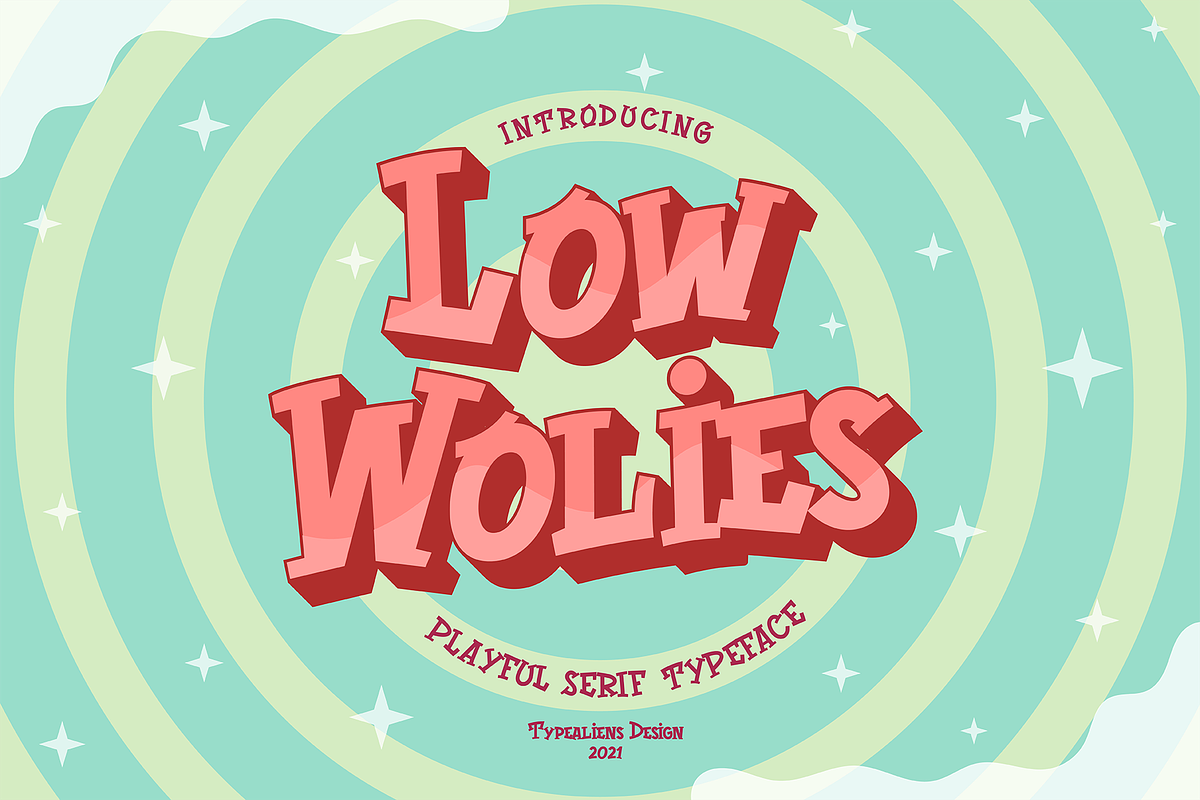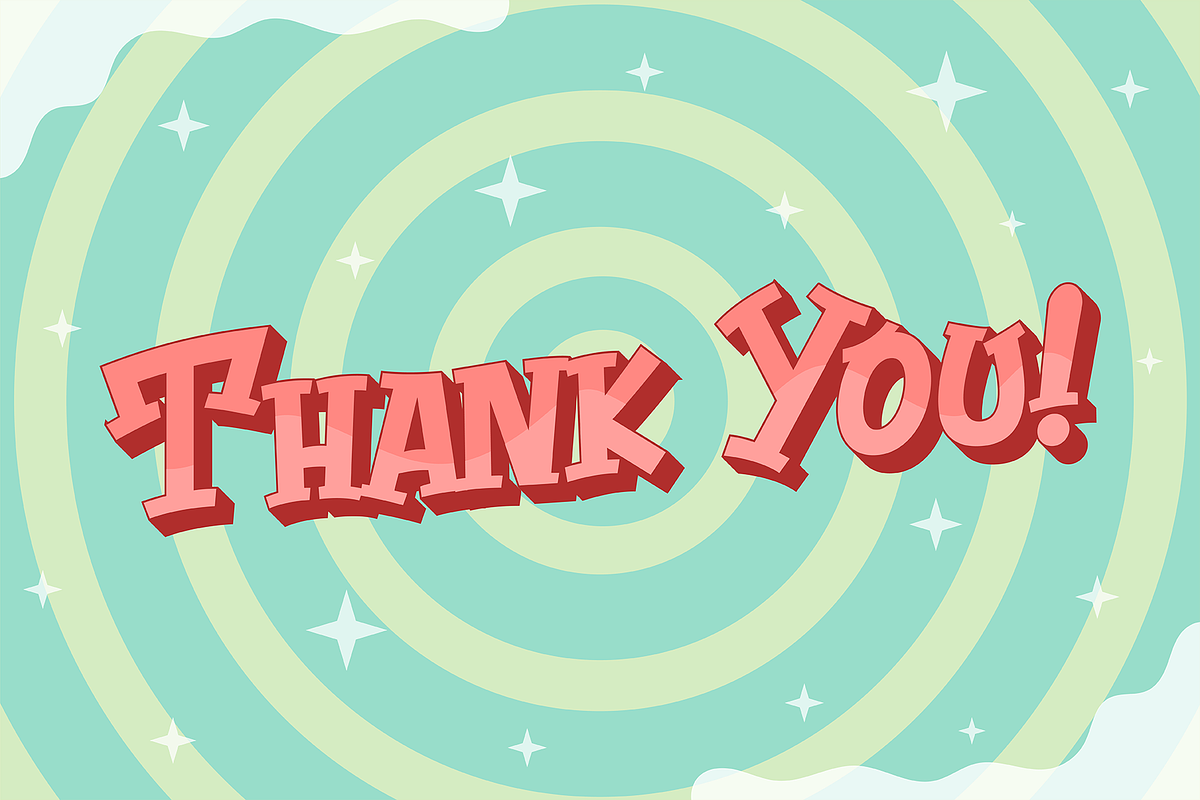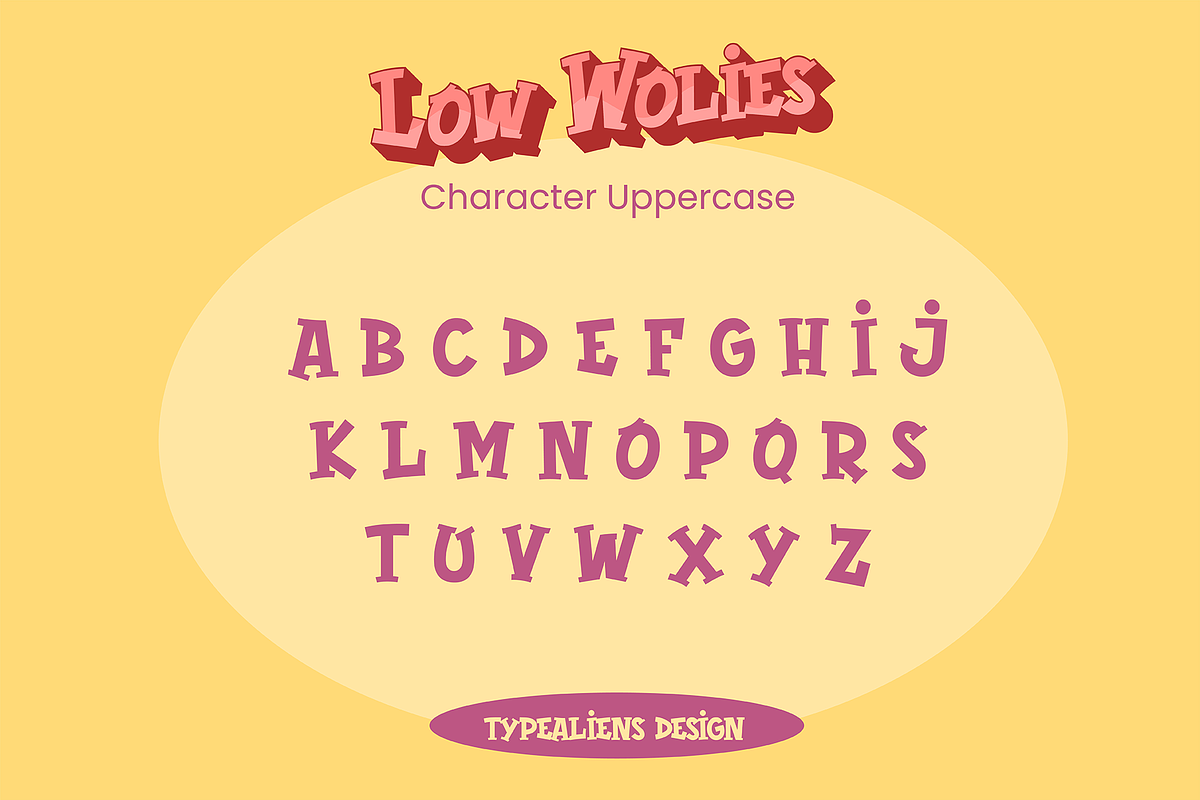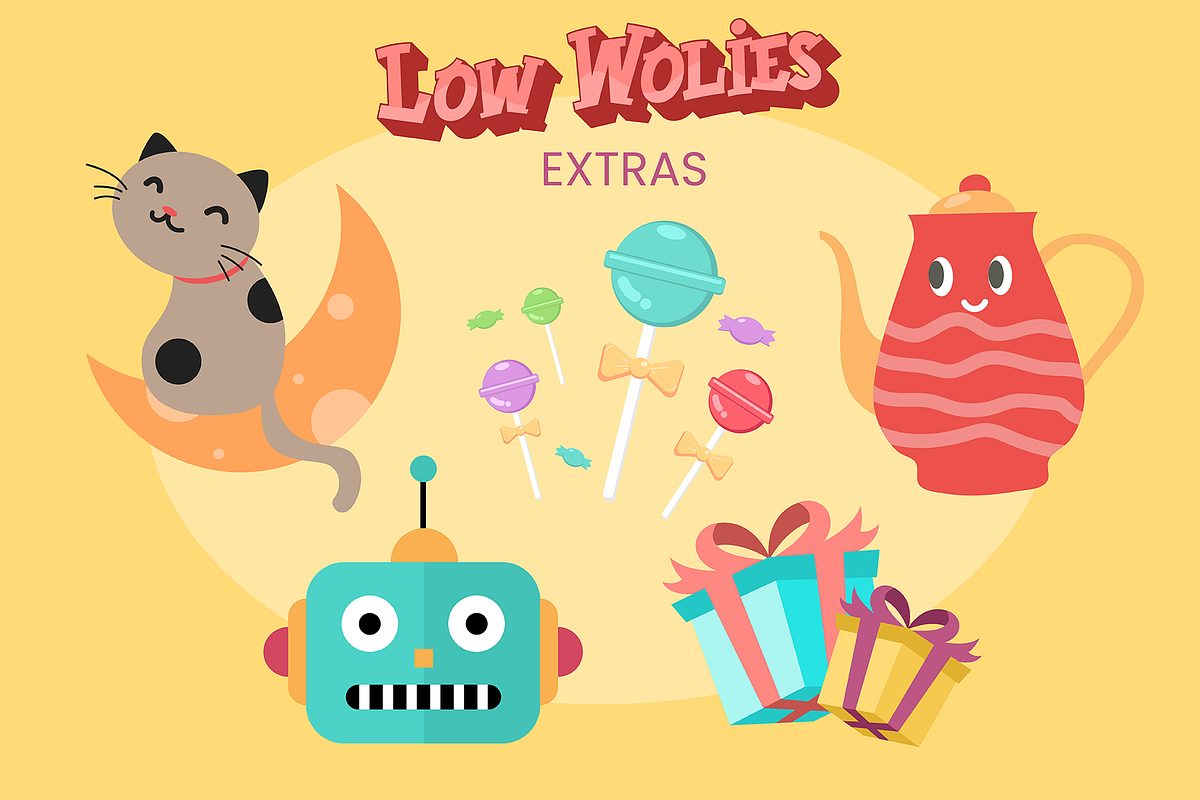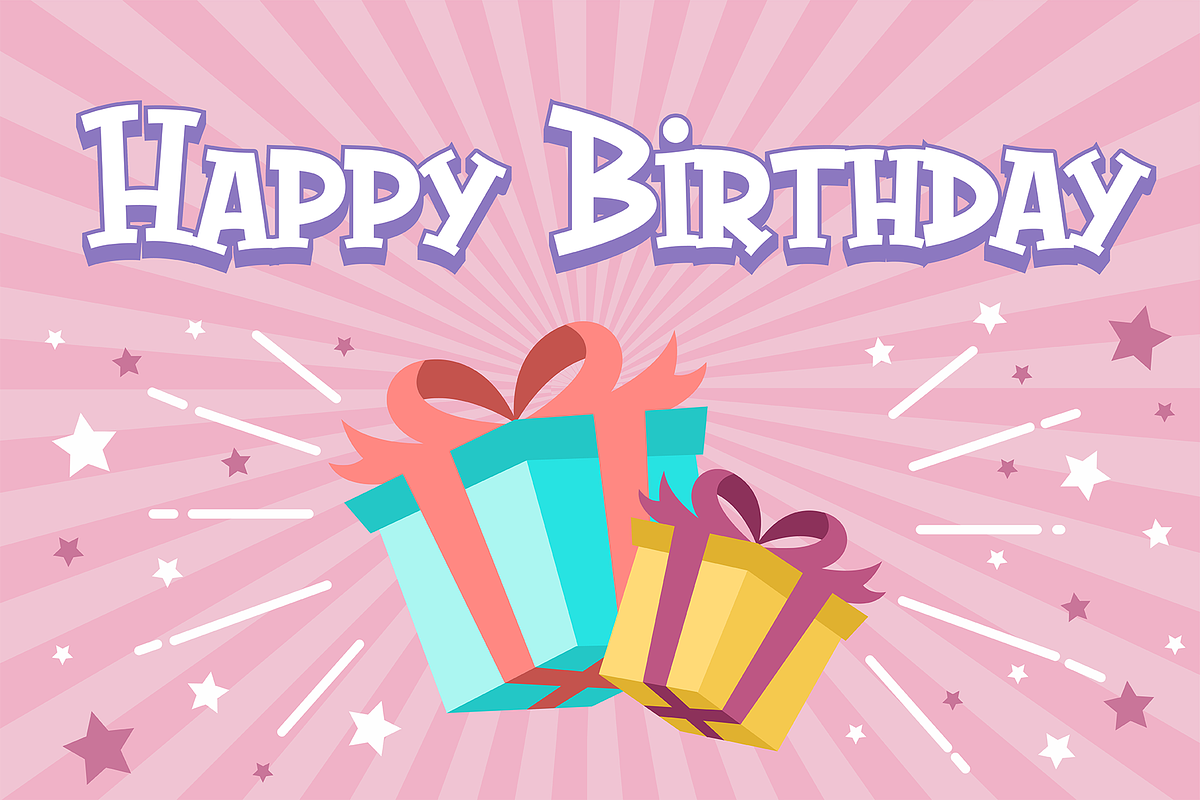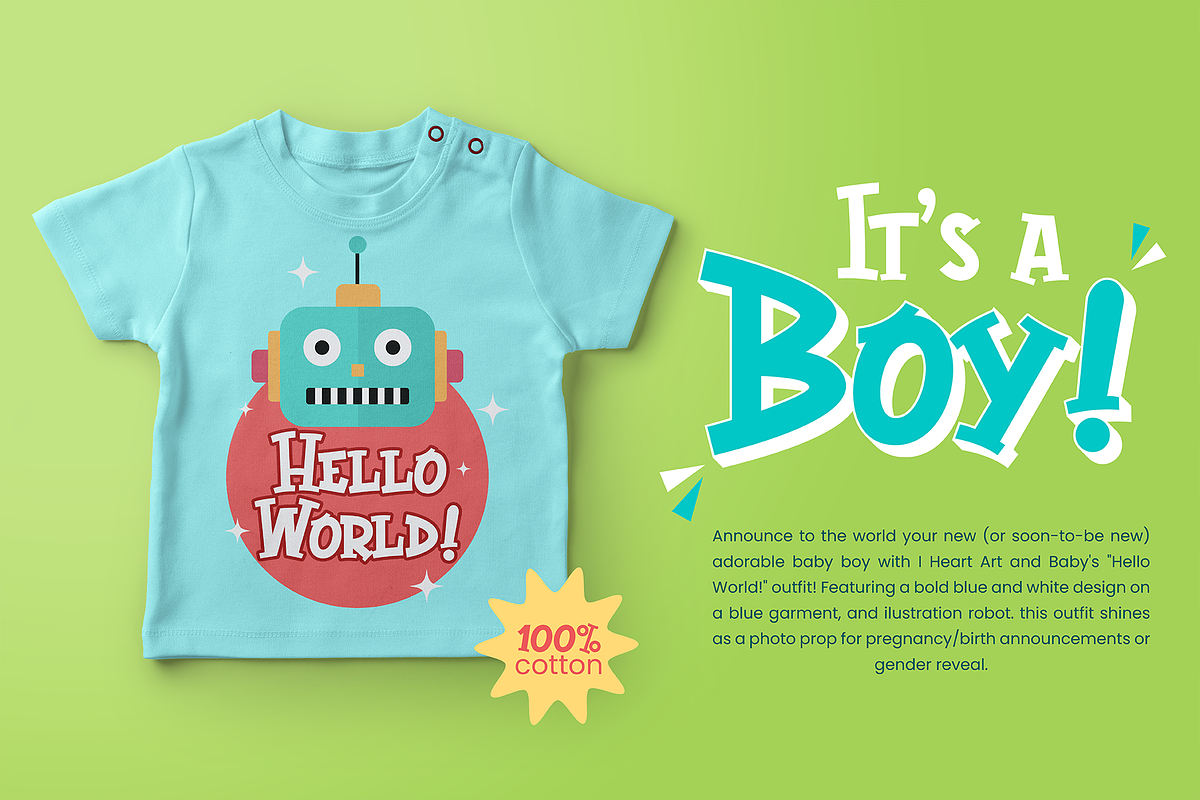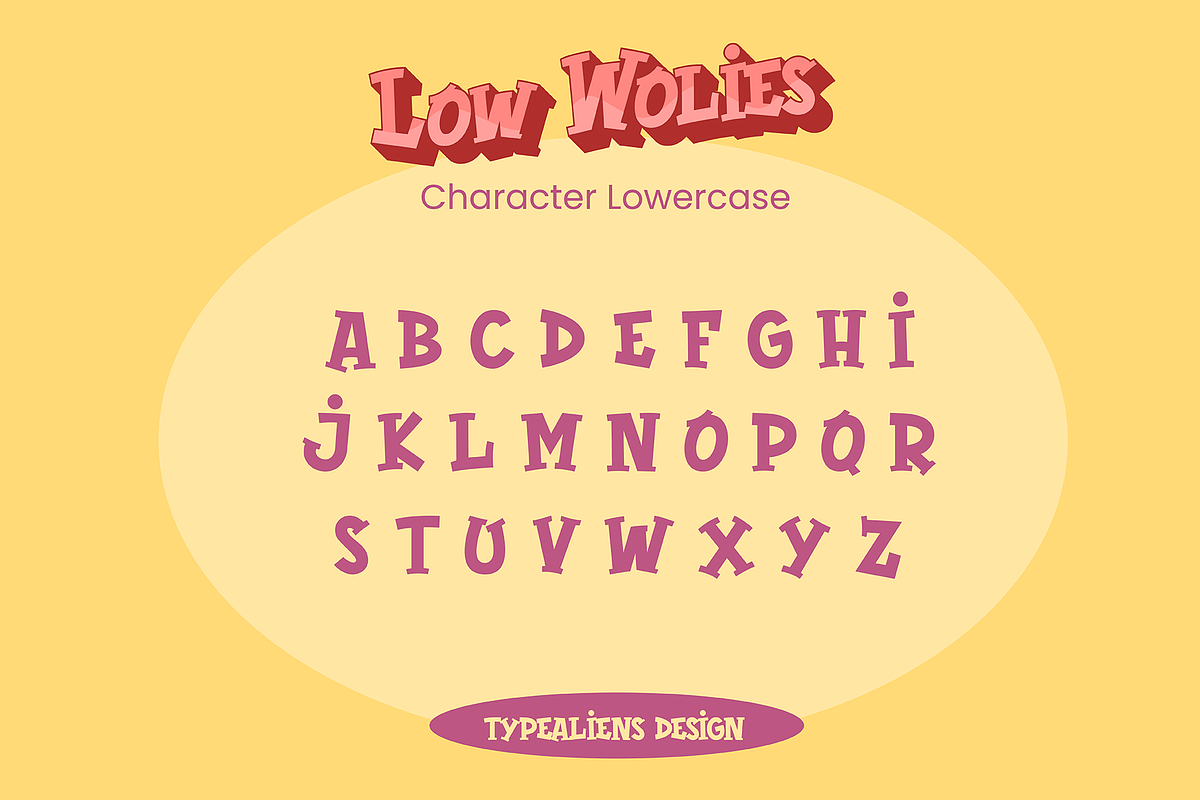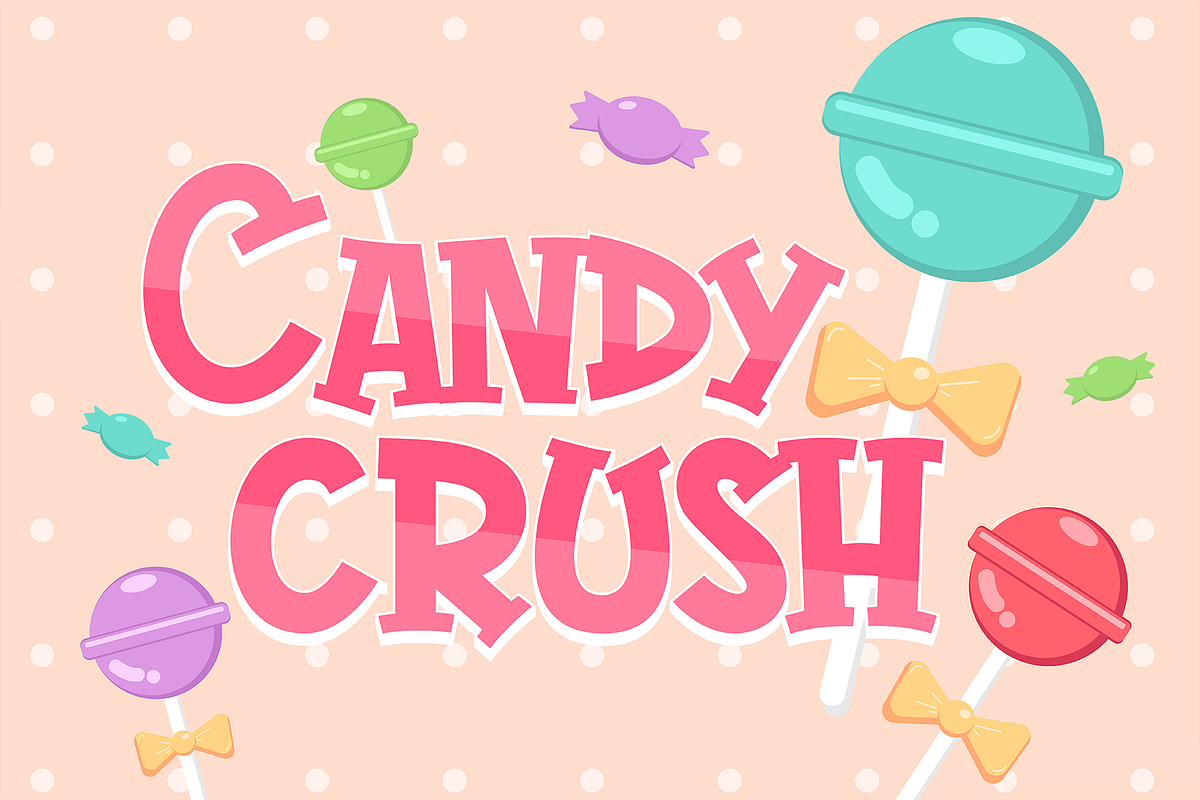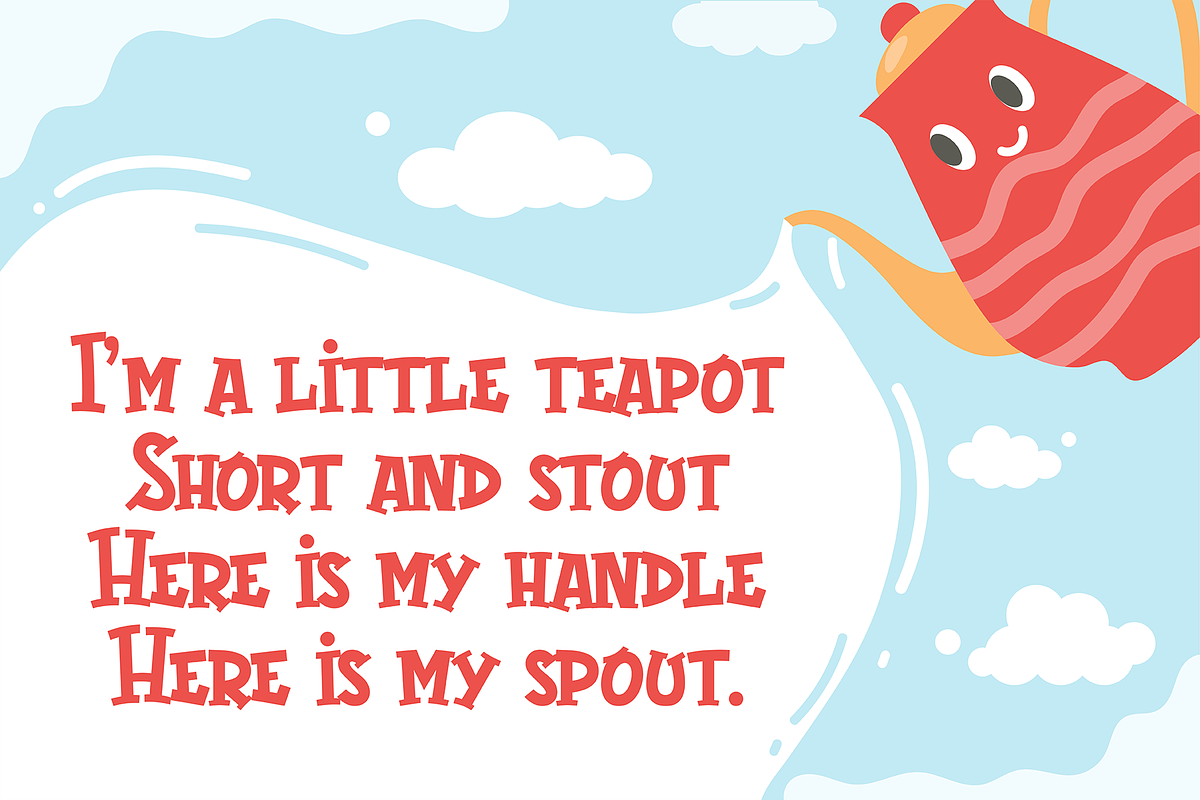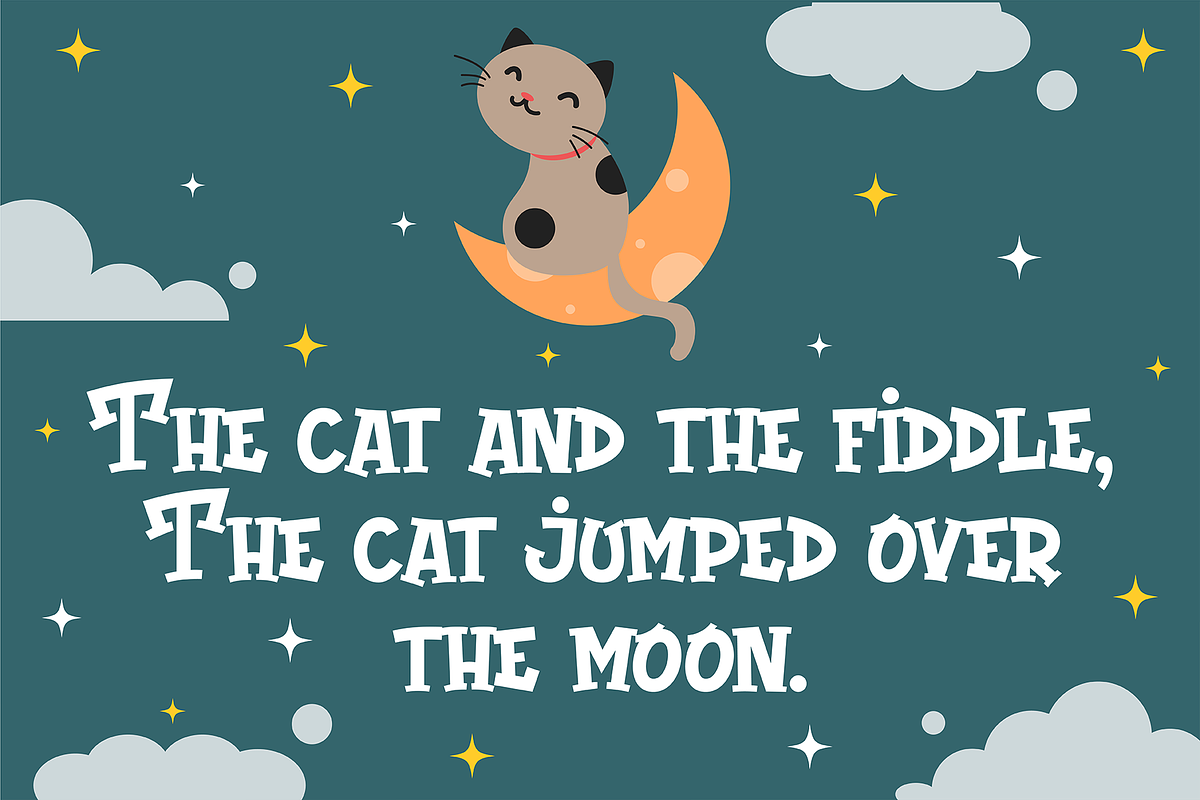
Low Wolies
LOW WOLIES
Low Wolies is a font whose basic is serif but is made freely aka playful. The font is suitable for things that are informal, childish, so it will be very suitable for making designs related to toys or children.